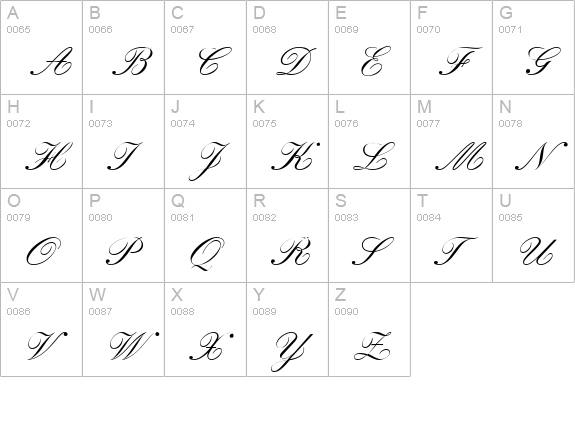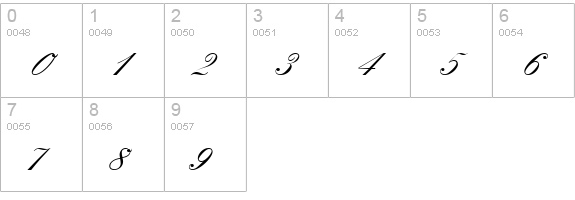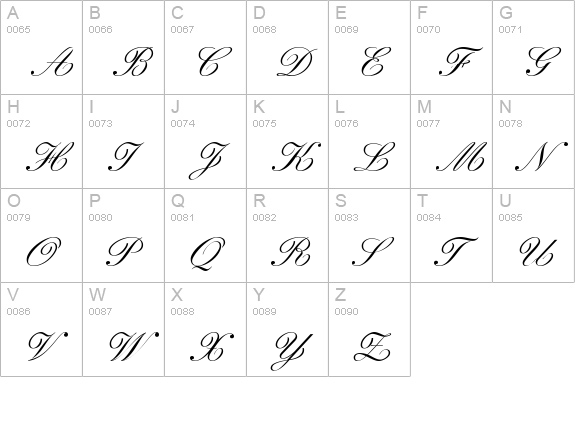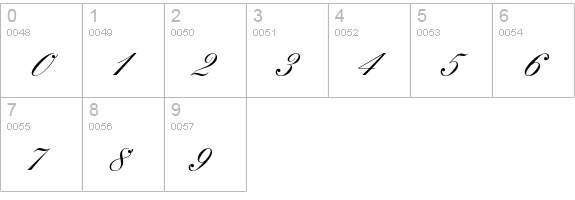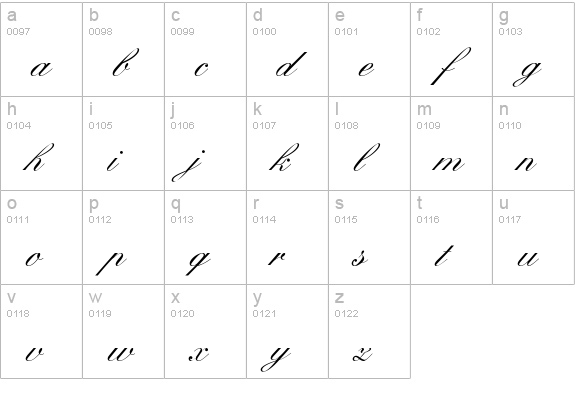
Heather Script One font is a beautifully crafted typeface that exudes elegance and sophistication. With its delicate and flowing letterforms, this script font adds a touch of class to any design project. It is perfect for invitations, wedding stationery, logos, branding, and more. The Heather Script One font is a versatile and timeless choice, suitable for both feminine and masculine designs. Its graceful strokes and intricate details make it stand out from other script fonts, giving your designs a unique and refined look. What sets the Heather Script One font apart is that it is freely available to download at FontsMarket.com. This means that you can access this stunning font without any cost, making it a valuable asset for designers and creatives. Whether you are a professional graphic designer or a hobbyist, having access to high-quality fonts like Heather Script One can greatly enhance your projects. Don't miss the opportunity to add this free font to your collection. Download the Heather Script One font today from FontsMarket.com and elevate your designs with its timeless beauty and elegance.